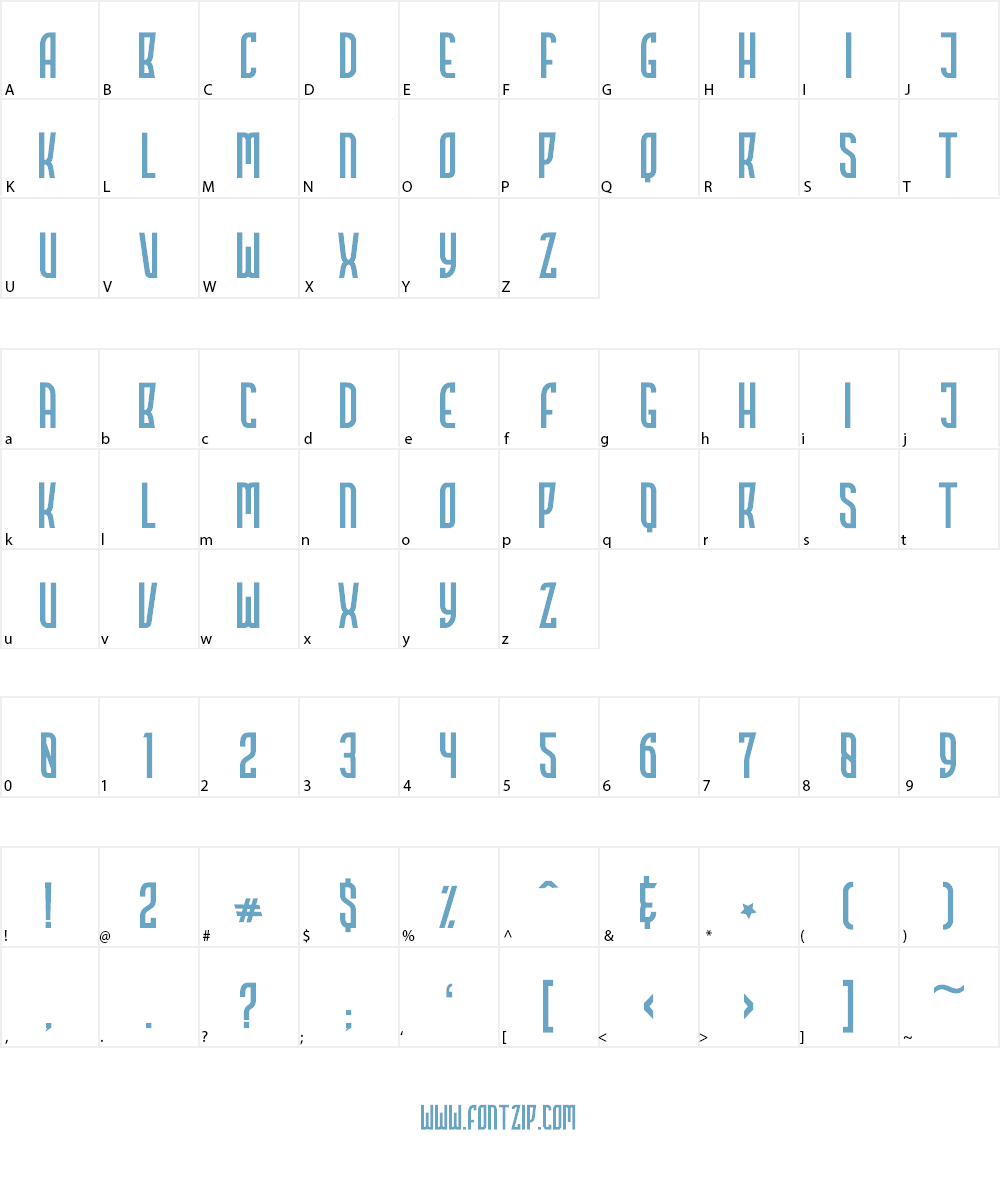
Introducing Highstories Family with Better Pairing style. The best font collection with some interesting styles and a beautiful blend in your design, the letters look firm and easy to use in your various works best for use Poster, Branding, Logotype,t-shirt design product design,packaging and Quotes and more again.